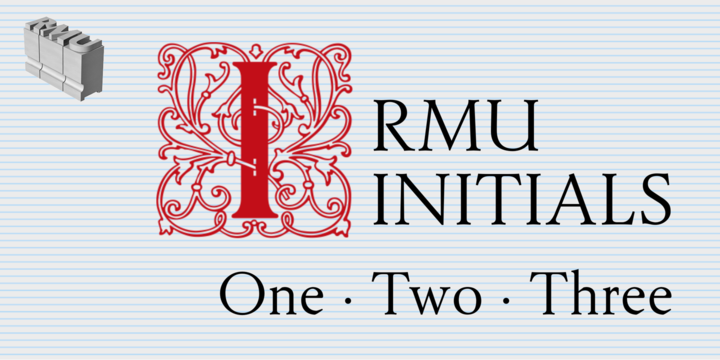
• Initials RMU™
Two fonts entirely of decorative initials of which the uppercase basic letters of RMU Initials One are occupied by Walthari Initials, the lowercase ones by Eckmann Initials, both released first by Rudhardsche Giesserei, Offenbach, Germany, about 1900.
RMU Initials Two consists of Jubilaeumsinitialen in the uppercases and Augsburger Initialen in the lowercases.
RMU Initials Three comes with floral ornaments, whereby the lowercase initials can be colorized by yourself due to non-joining elements.
Initials RMU One
Initials RMU Two
Initials RMU Three